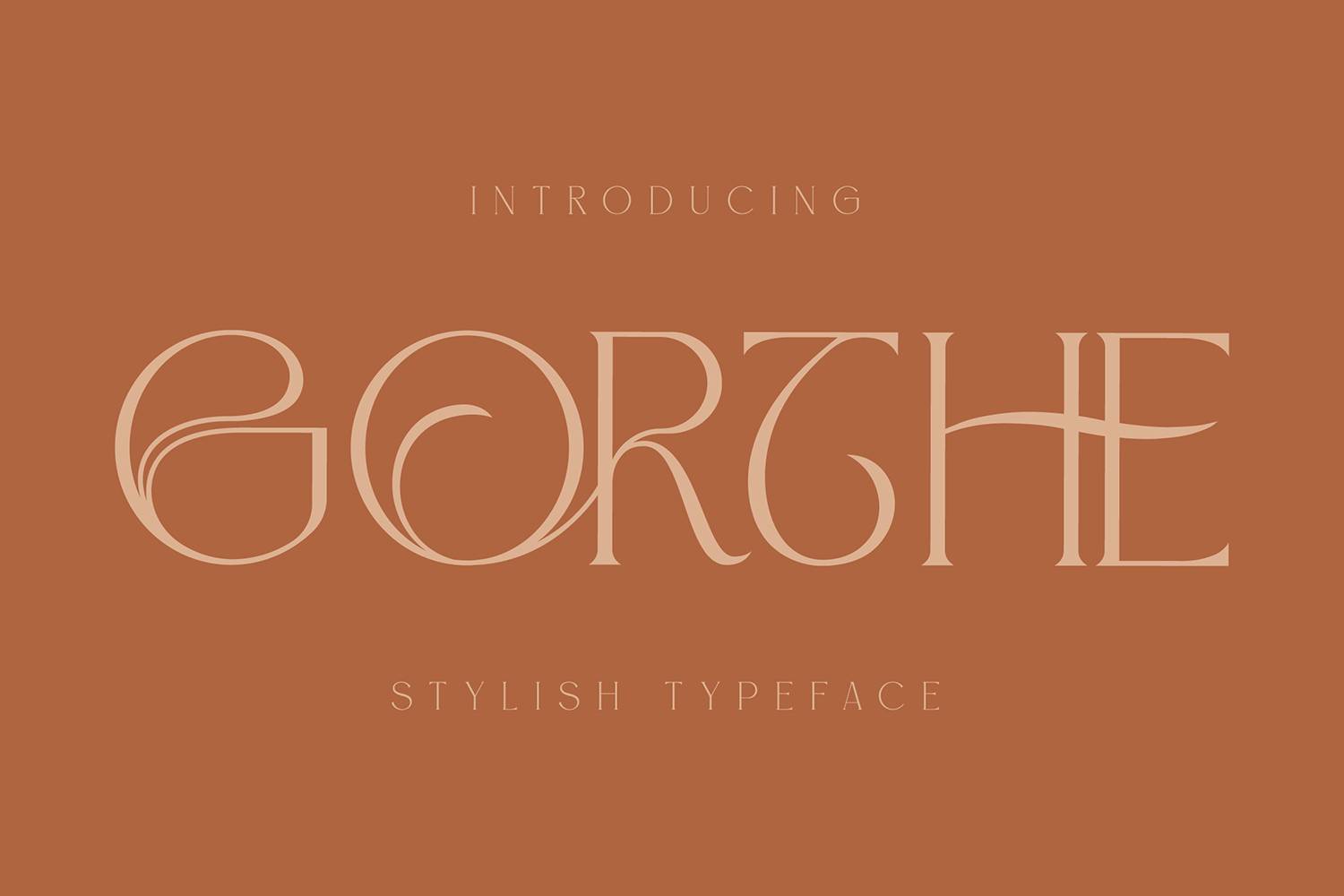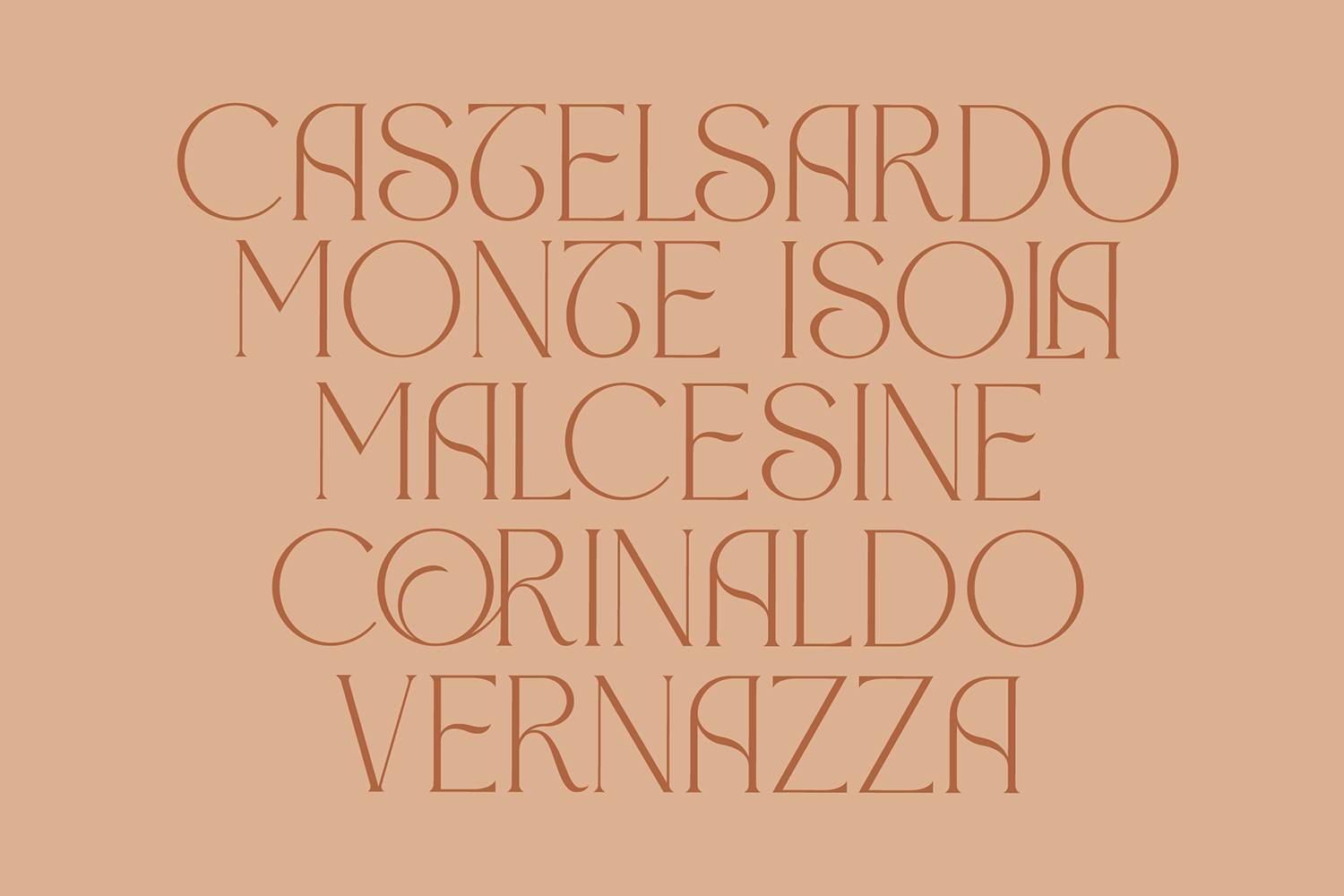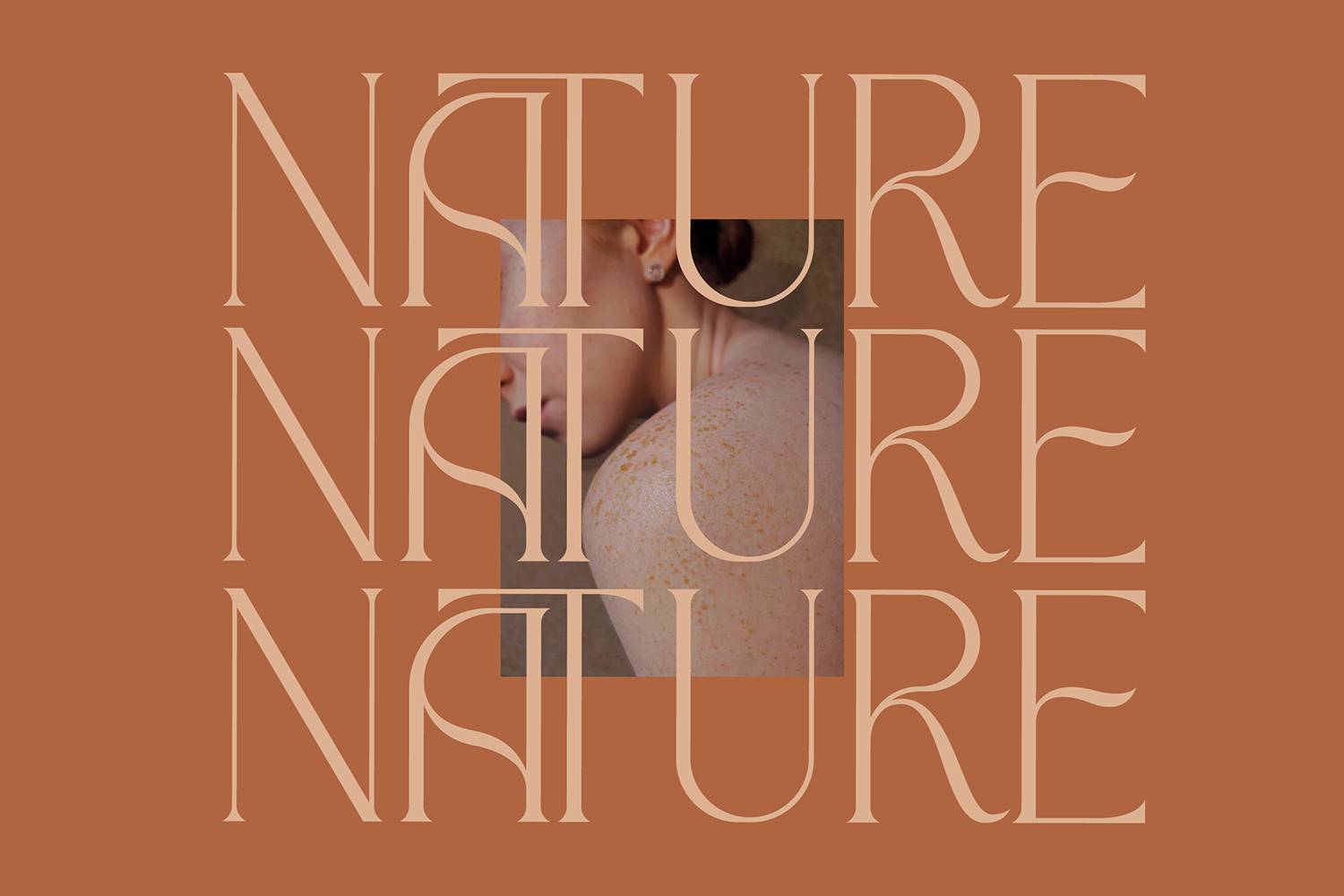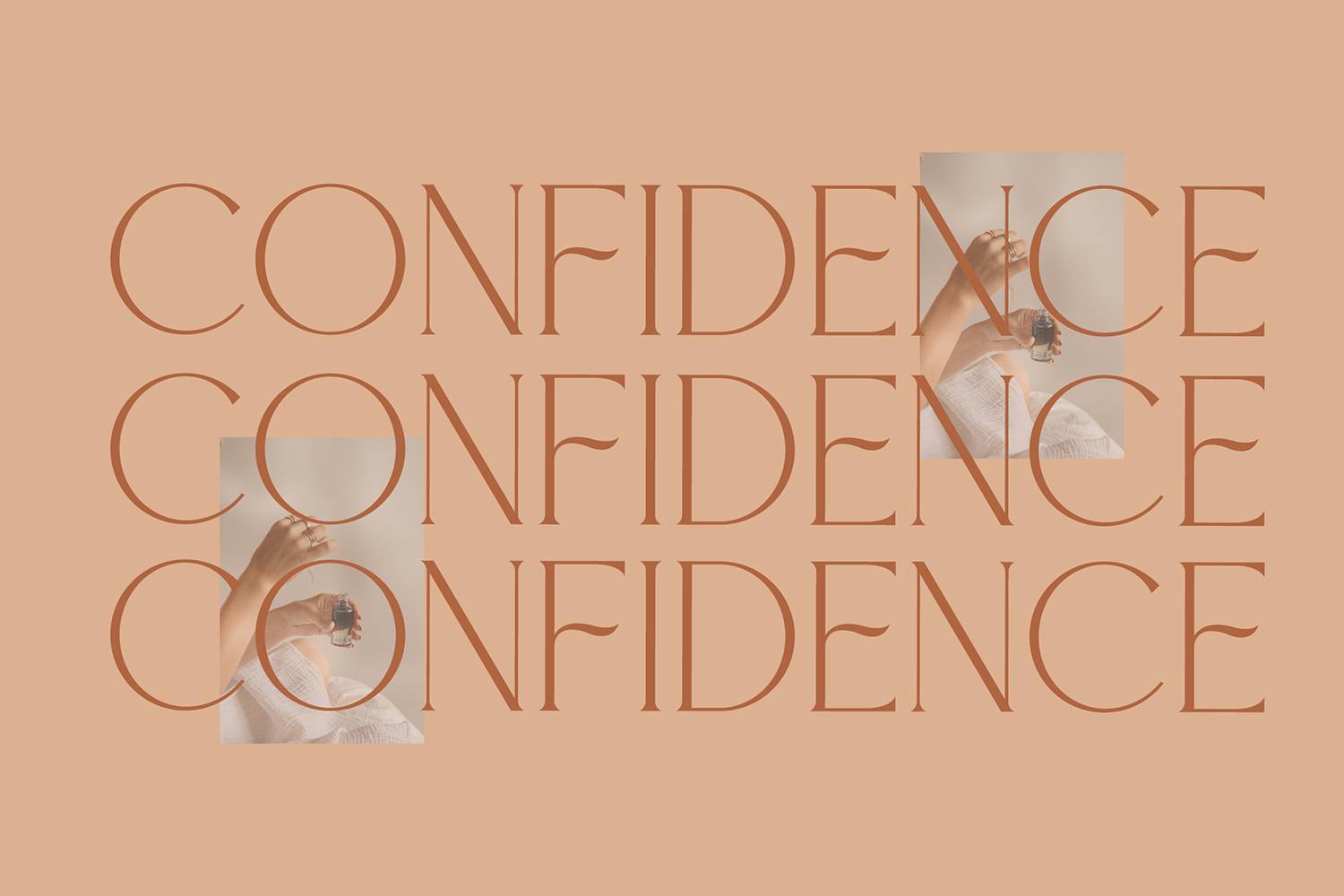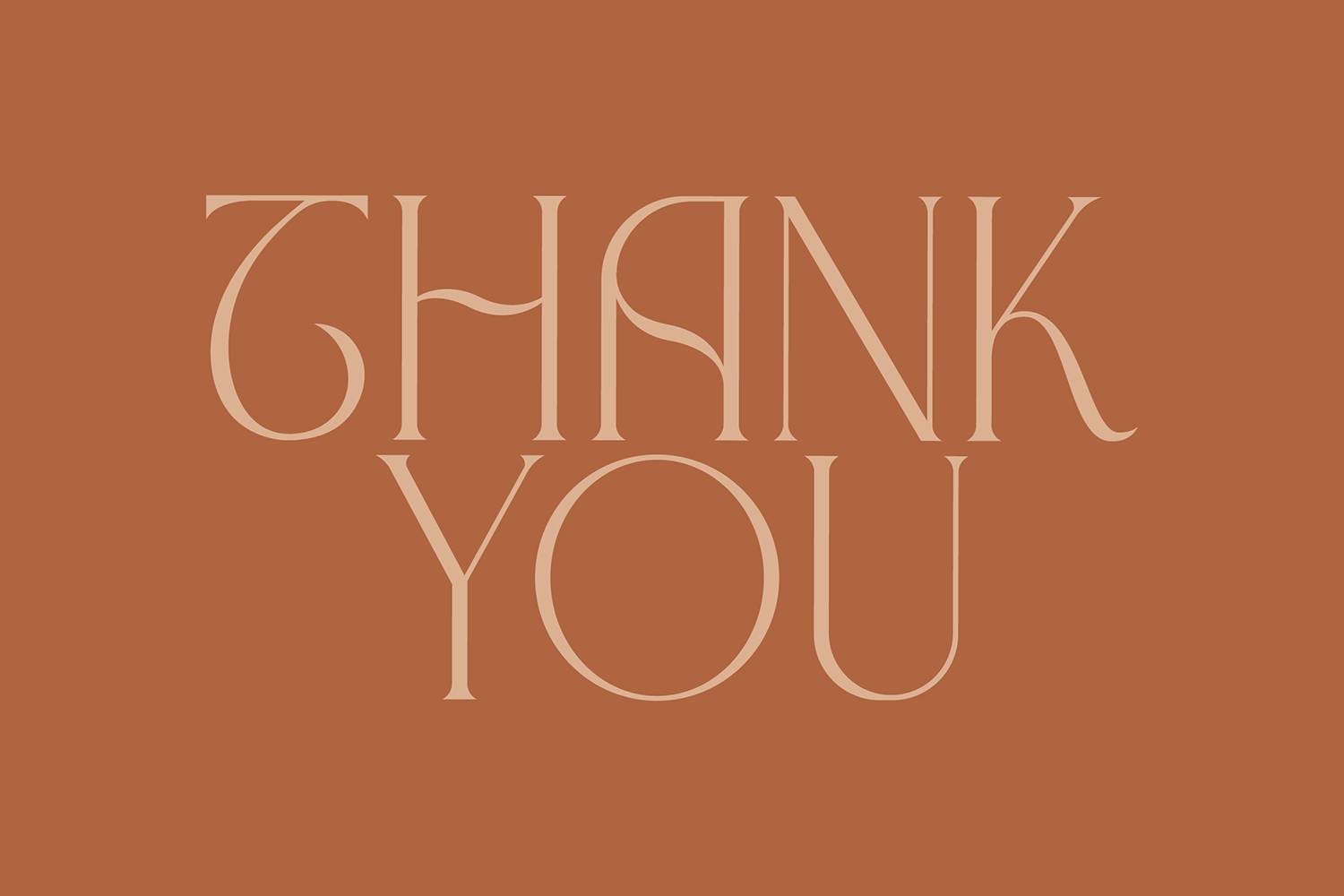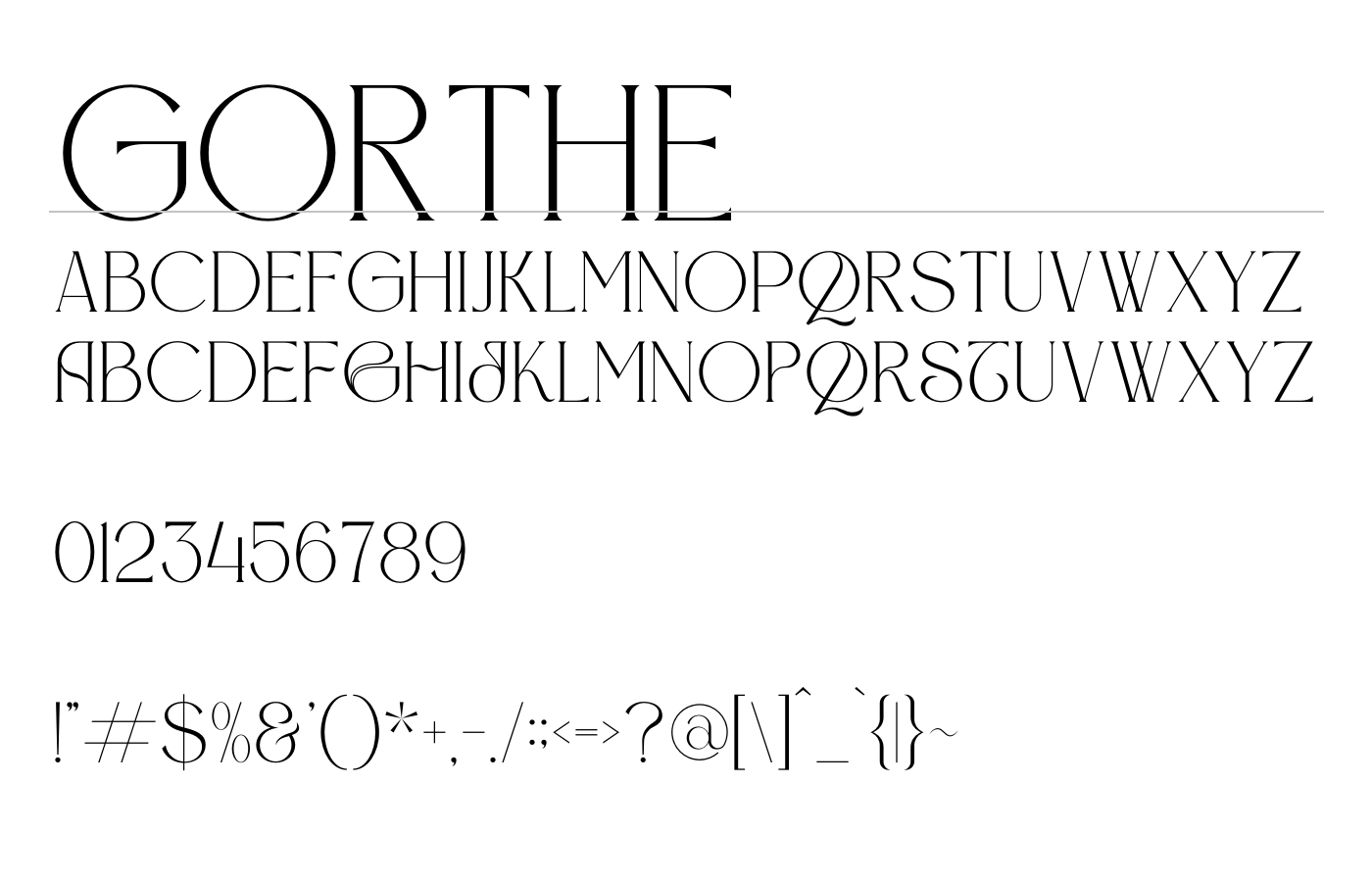
Gorthe is a delicate serif font with tall, slender letterforms and a high contrast between its thin and thick strokes, giving it an elegant and refined appearance. Its unique, artistic details, such as the intricate curves and distinctive shapes of letters like Q and R, make it well-suited for luxury branding, editorial headlines, and sophisticated logos where a touch of sophistication and style is desired. This font's airy spacing and graceful structure create a striking, modern yet timeless feel that enhances upscale design projects.
Gorthe Font
About Gorthe Font